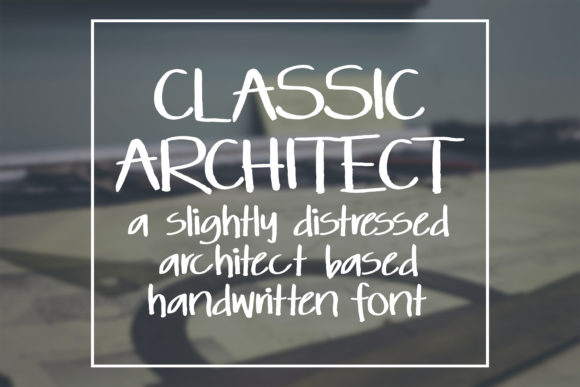
Behold, the Classic Architect font, a splendid creation by SavoringSurprises that exudes a delightful handwritten charm. Step into a world of captivating designs with this sans serif gem, meticulously crafted to infuse your projects with a touch of timeless elegance.
Unleash the boundless creativity within you as you explore the endless possibilities of the Classic Architect font. Its slightly distressed texture lends an air of authenticity and intrigue, reminiscent of age-old manuscripts and vintage typography. Embrace the boyish allure of this font, expressing the raw energy and youthful spirit that lies within your designs.
Envision the beauty of the Classic Architect font adorning your wedding invitations, imbuing them with a personal touch that reflects the joyous occasion. Craft heartfelt love letters that speak volumes, each word flowing effortlessly in the graceful curves of this font. Unleash your inner artist and create stunning posters and flyers that demand attention, leaving an indelible mark on the minds of your audience.
The versatility of the Classic Architect font knows no bounds. It harmonizes effortlessly with script fonts, forming a symbiotic union that elevates your designs to new heights. Let your imagination soar as you combine the Classic Architect font with other design elements, creating visually captivating compositions that captivate and inspire.
Embrace the Classic Architect font, a timeless treasure that transcends the boundaries of ordinary typography. Its versatility and charm will elevate your designs, transforming them into masterpieces that resonate with your audience. Let your creativity flourish as you embark on a journey of artistic expression with the Classic Architect font.